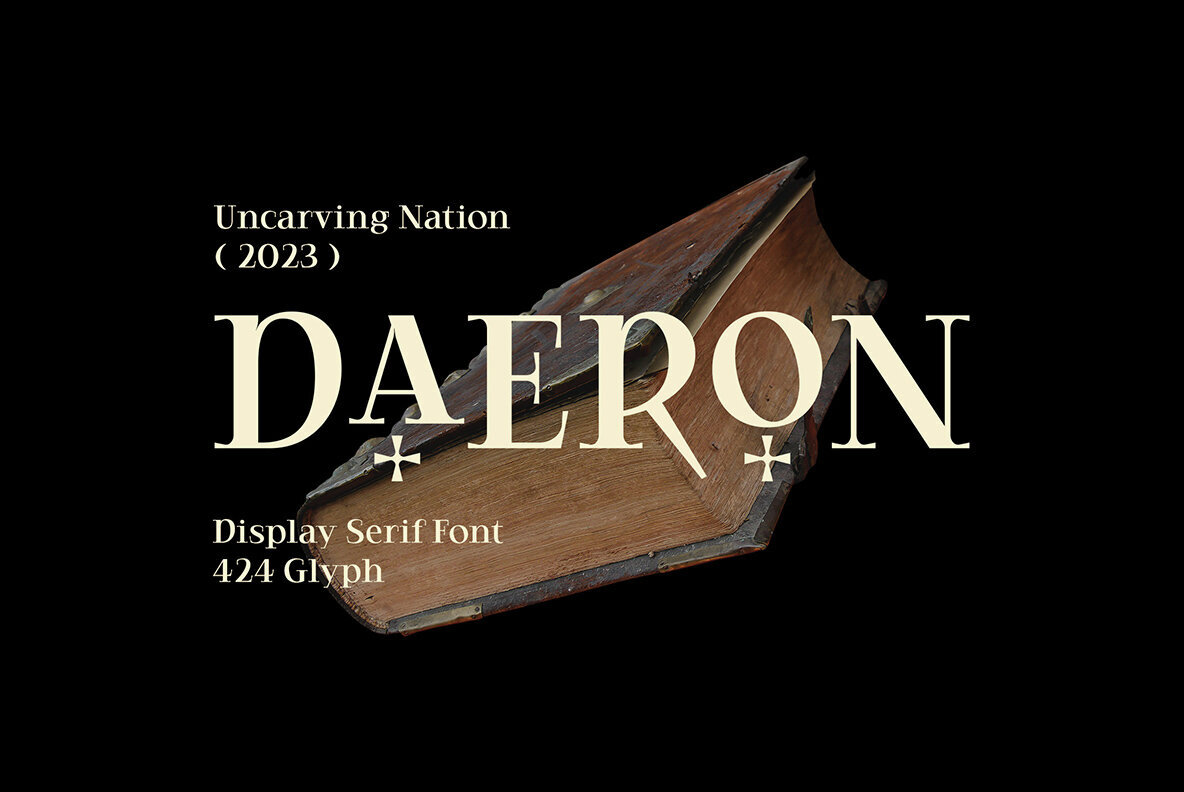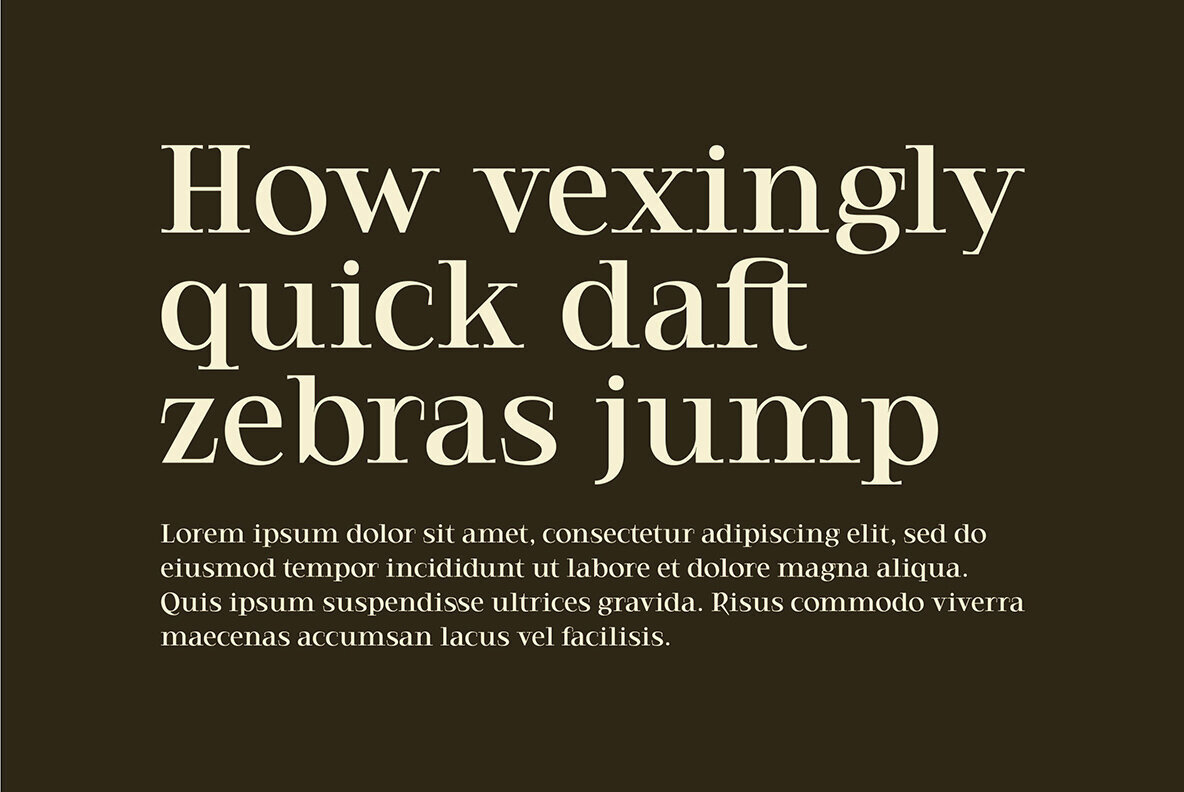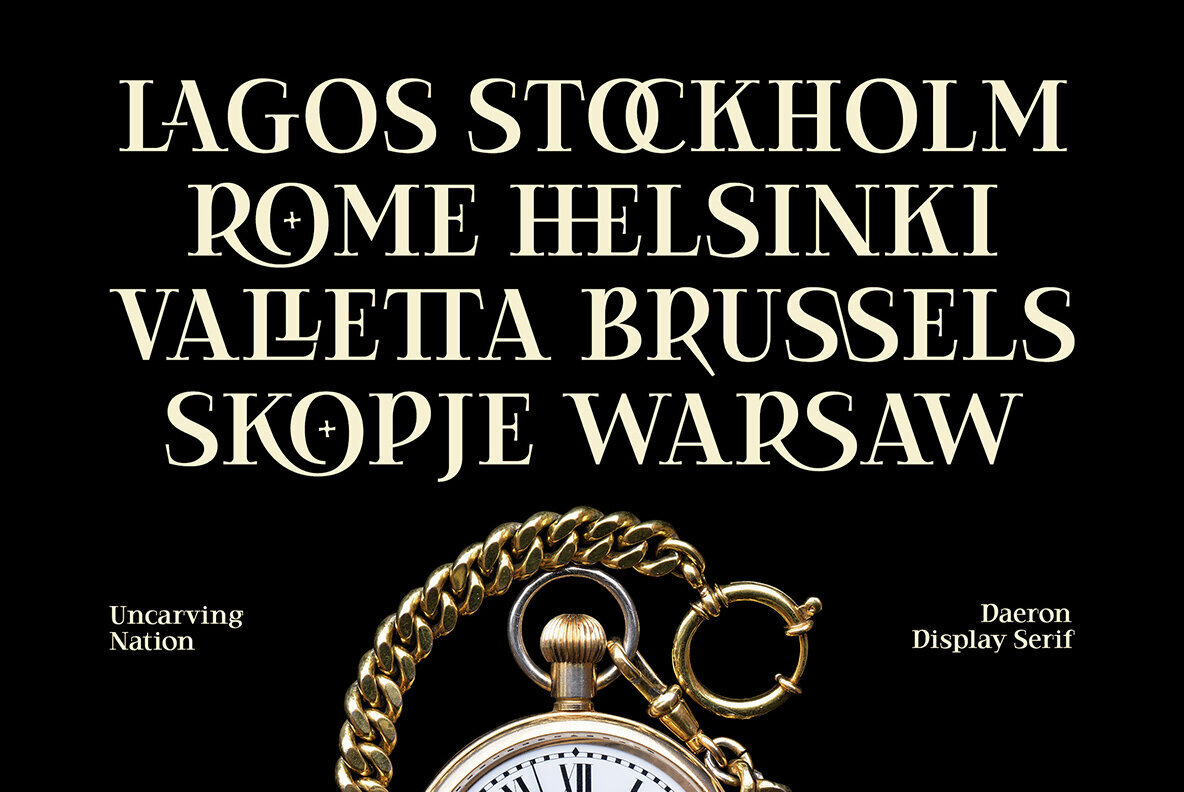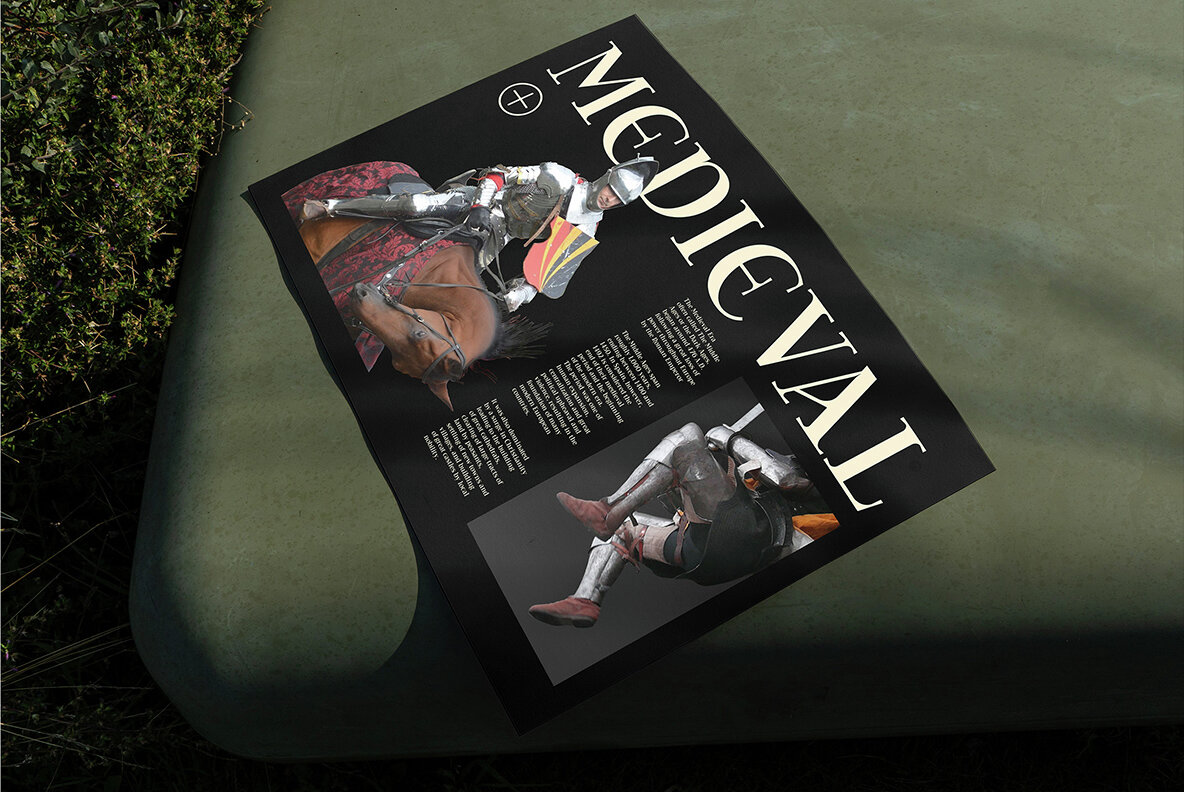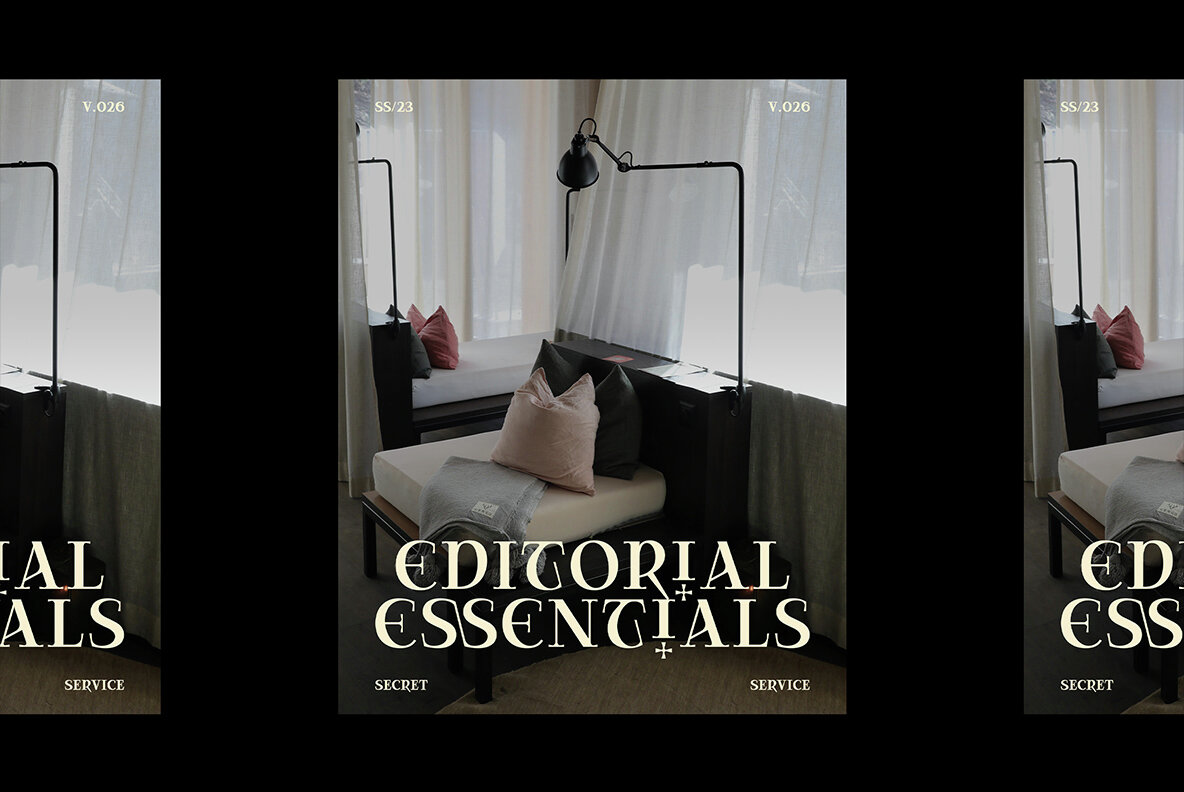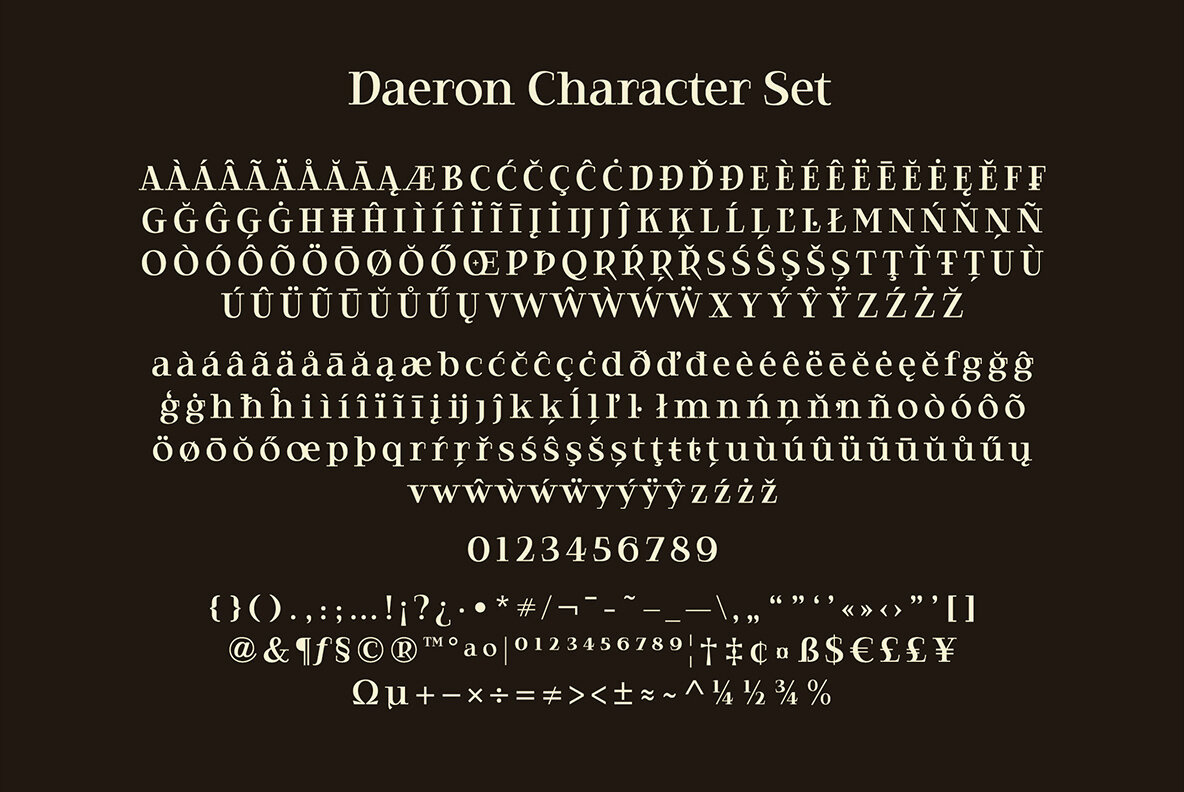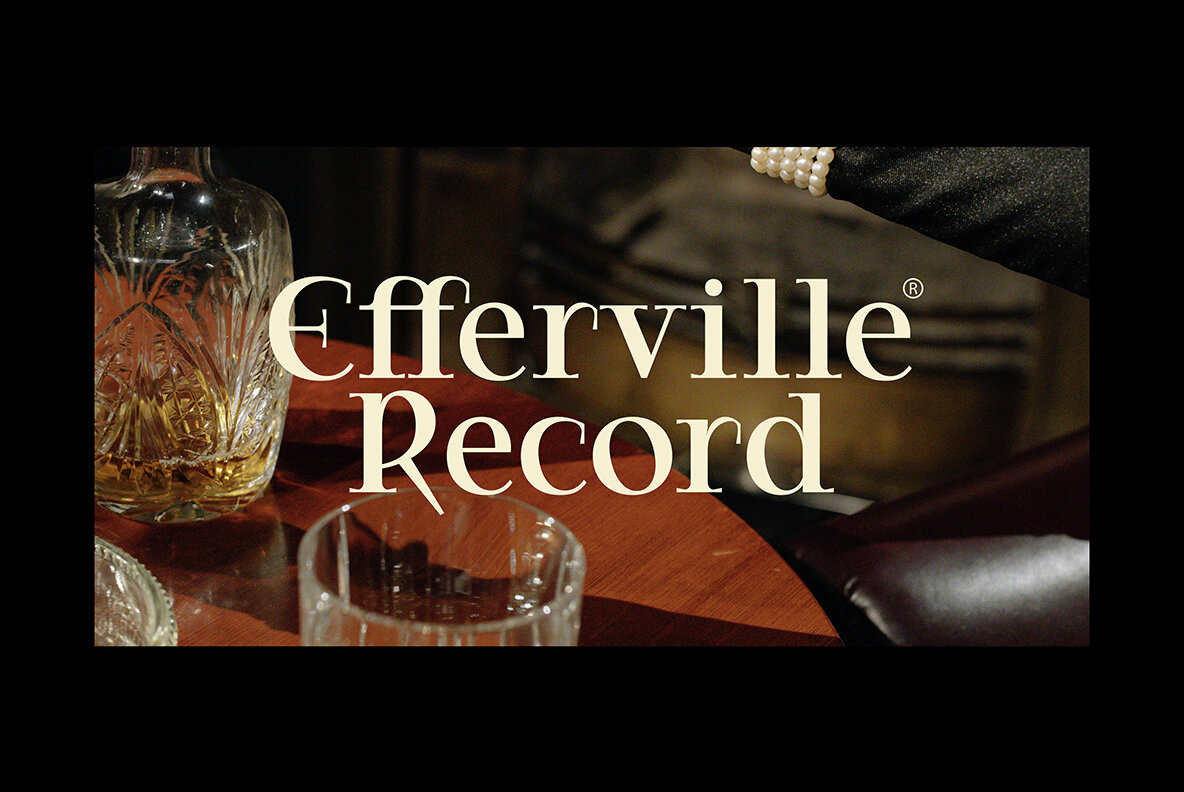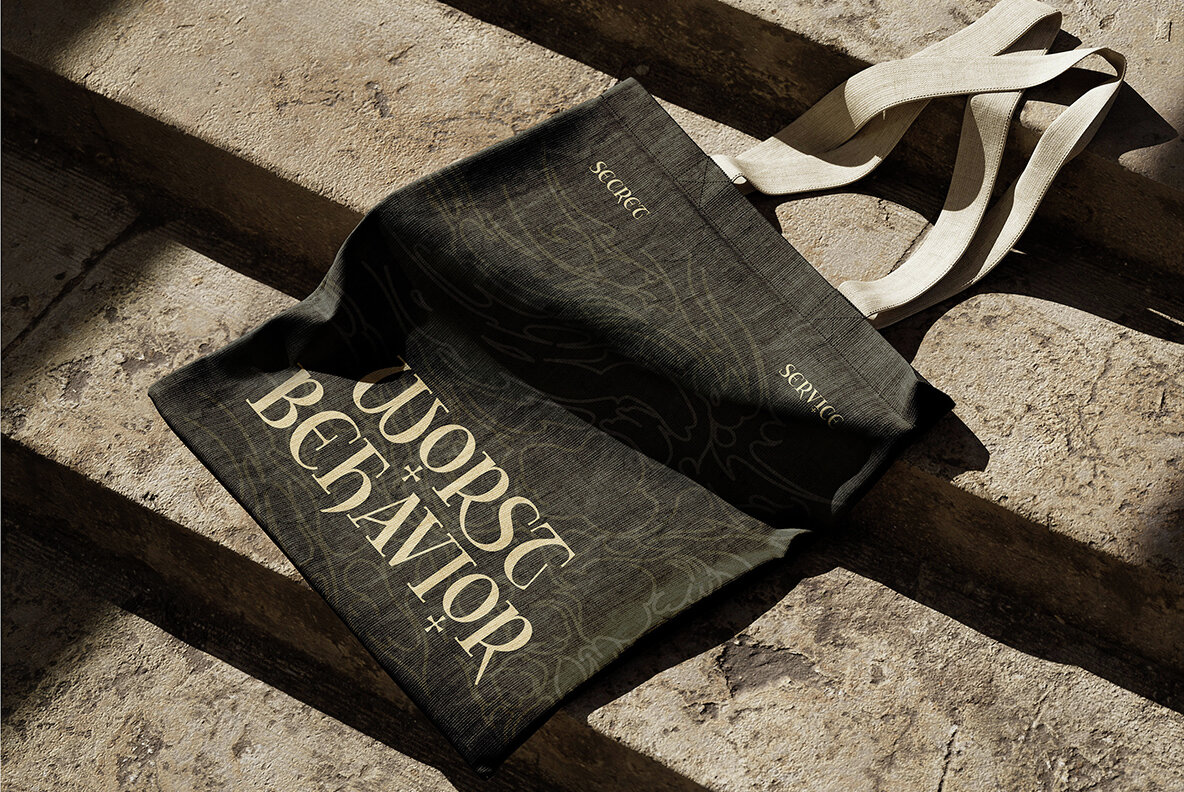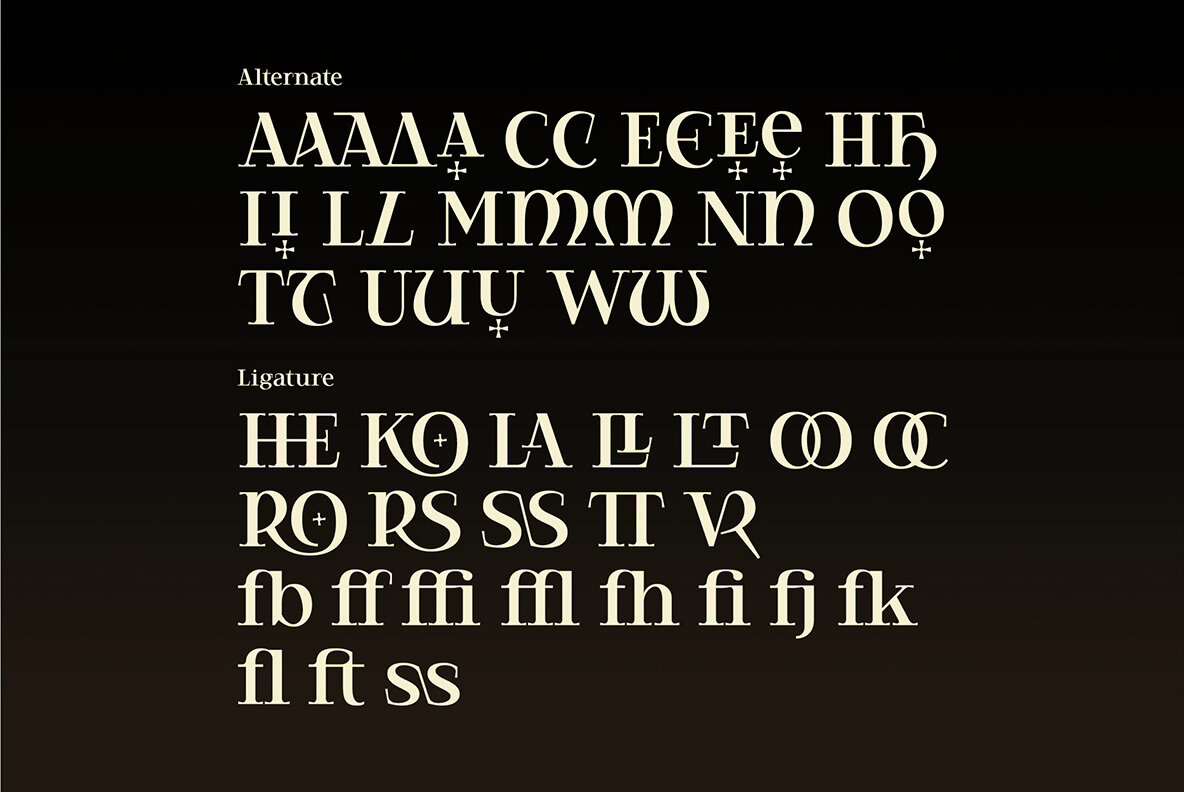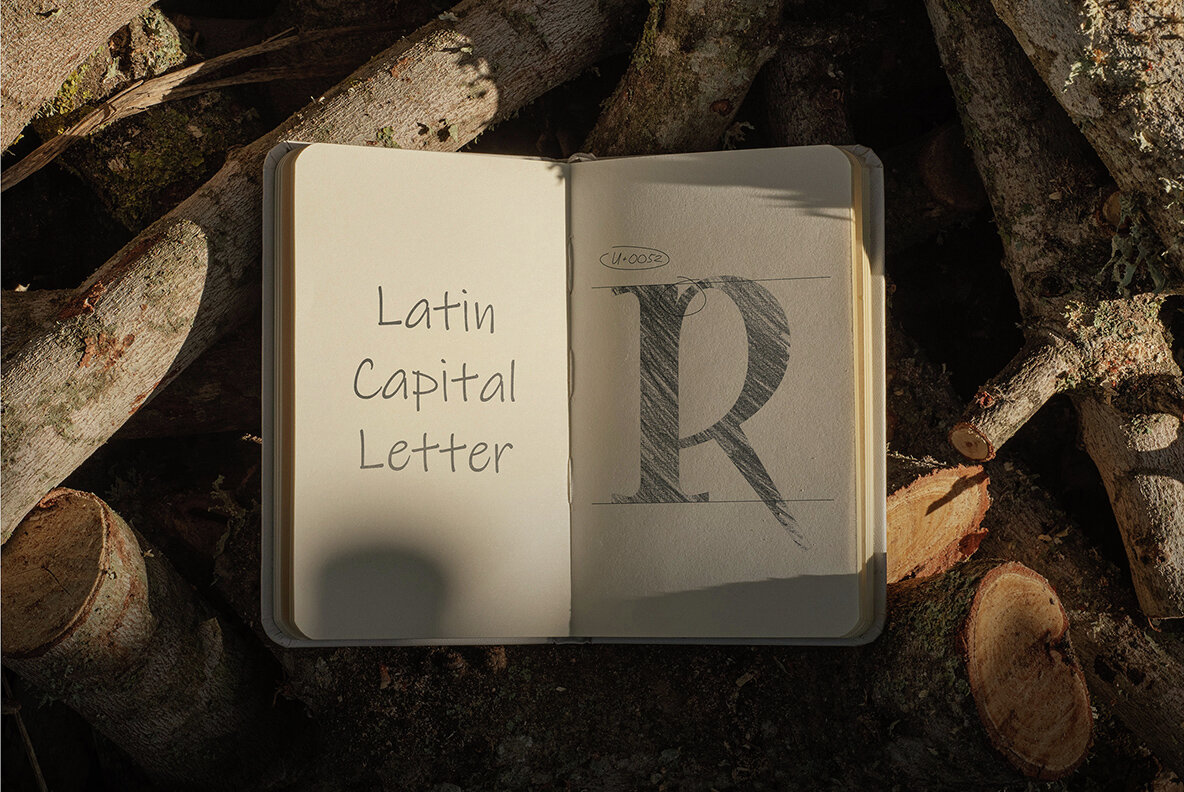
Daeron Font
Daeron
Embrace timeless elegance with Daeron, a versatile serif display typeface perfect for both classic and modern aesthetics. Its sophisticated design makes it an ideal choice for creating impactful logotypes, beautifully printed quotes, and elegant invitations. Whether you're designing cards, product packaging, or headers, Daeron delivers a touch of class. Add an air of refinement to your work with Daeron, ensuring each project leaves a lasting impression.Daeron Display Typeface